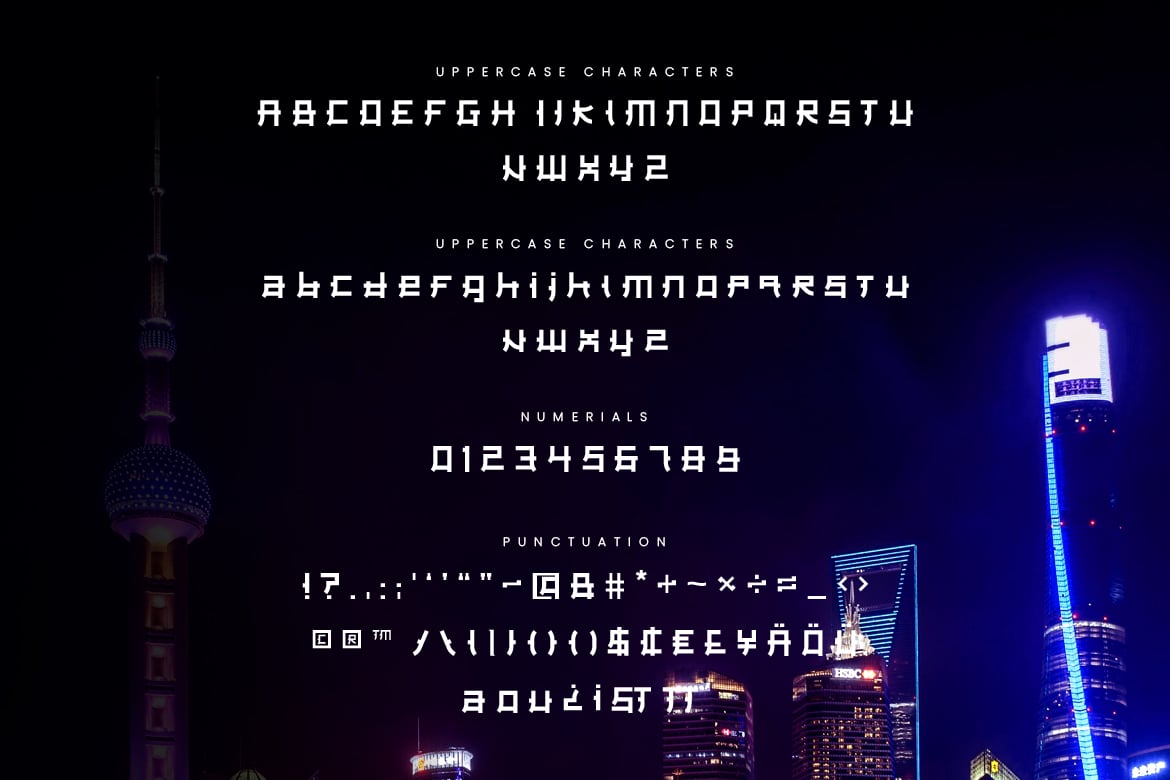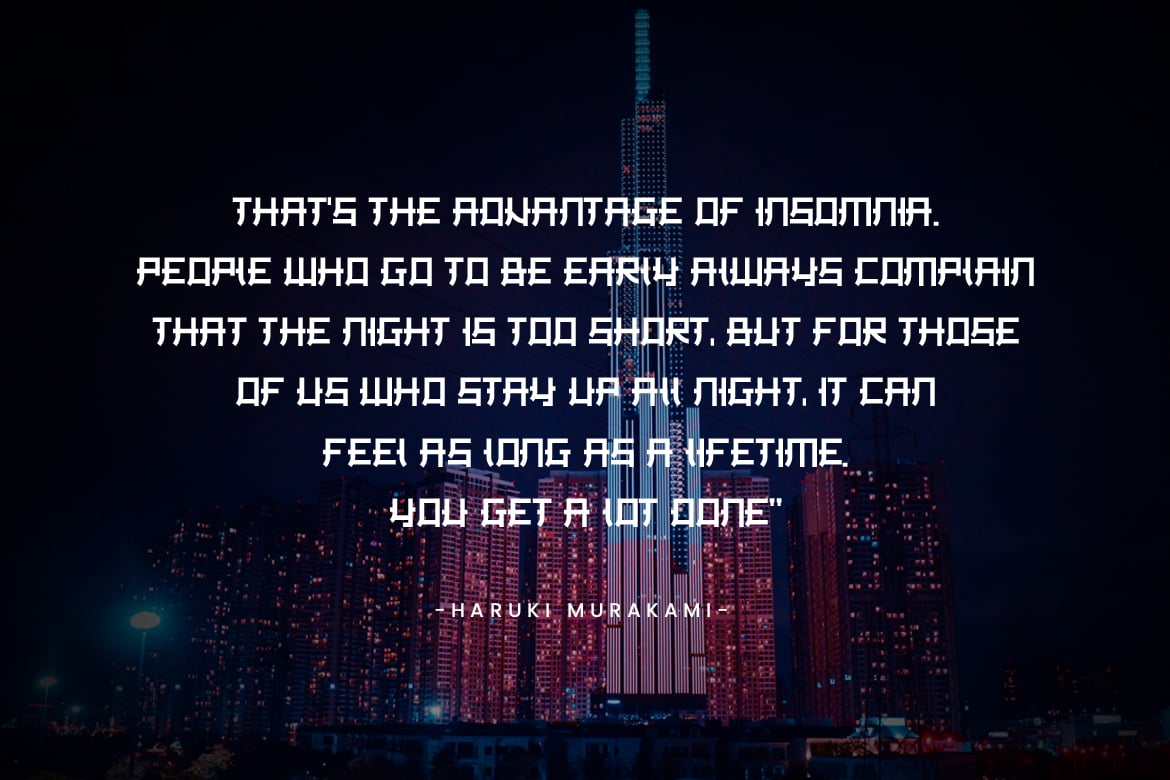
Bulgogi – Ethnic Asian Display Typeface
Introducing Bulgogi font. Are you looking for a bold and solid display font that has ethnic asian traditional feeling? We can help! Try to download our Bulgogi font. The font is suitable to use for many occasion such as traveling, poetry, movie title, book title, brand identity, and many more π